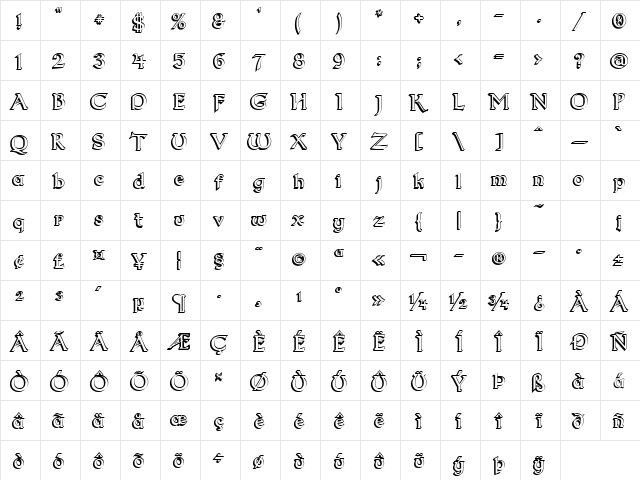
Dumbledor 2 3D Regular Free Font
Dumbledor 2 3D Regular
Dumbledor 2 3D Family
Dumbledor 2 3D Regular
Dumbledor 2 3D Regular Font Preview
Dumbledor 2 3D Regular Uppercase Preview
Dumbledor 2 3D Regular Lowercase Preview
Dumbledor 2 3D Regular Numeric Preview
Dumbledor 2 3D Regular Character Map
Complete Dumbledor 2 3D Regular glyph index. Displaying only characters natively supported by Dumbledor 2 3D Regular font.
Dumbledor 2 3D Regular Character Map
Dumbledor 2 3D Regular Test Drive
Design Context for Dumbledor 2 3D
Dumbledor 2 3D is a composed and adaptable typeface that performs quietly and consistently across a wide range of design contexts.